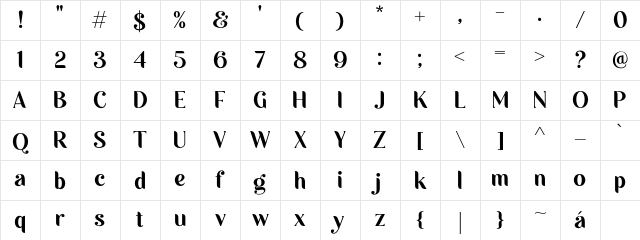
Saphira DEMO Regular Free Font
Saphira DEMO Regular
Foundry: Sarid Ezra
Designer: Sarid Ezra
Design Context for Saphira DEMO
Saphira DEMO is a composed and adaptable typeface that performs quietly and consistently across a wide range of design contexts.